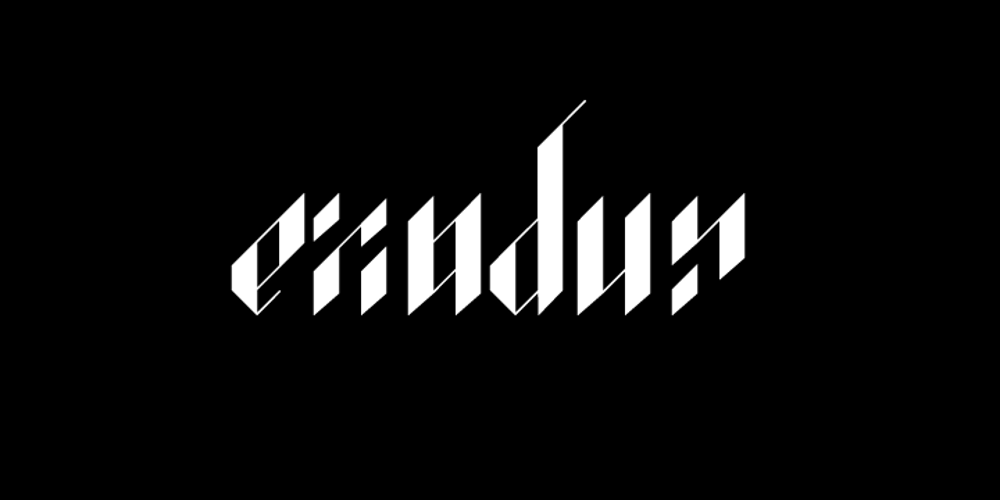
Alt Exodus Font Family was designed by Andreas Leonidou and published by ALT. Alt Exodus contains 1 styles and family package options. Exodus is one of my favorite fonts so far inspired by old manuscripts and sci fi movies. Its a decorative display font. See the whole presentation here: Behance.net